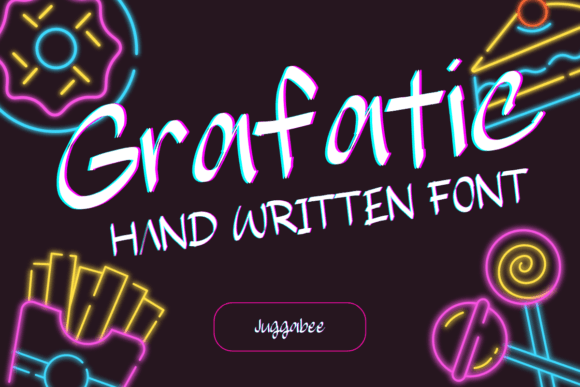
Dive into the world of Grafatic, the extraordinary script font that will make your designs pop with a burst of exuberance and charm. Crafted by the talented hands of Juggabee, Grafatic is not just a font; it's an adventure in creativity, a journey through the realm of unforgettable impressions.
With its playful personality and boundless versatility, Grafatic is your go-to choice for logos that demand attention, branding that speaks volumes, and designs that ignite imaginations. Let Grafatic be your muse as you weave captivating tales through your visual creations.
But Grafatic is more than just a pretty face. It's a font engineered for excellence, with an arsenal of alternative lowercase letters that empower you to craft unique and captivating compositions. Each letter is meticulously designed to dance harmoniously with the others, creating a visual symphony that commands attention and leaves a lasting impact.
With Grafatic by your side, you'll discover a treasure trove of possibilities, from whimsical invitations that spark joy to eye-catching social media posts that amplify your message. Unleash your creativity and watch as Grafatic transforms your designs into masterpieces that resonate with your audience.
Say goodbye to mundane fonts and embrace the magic of Grafatic. It's the perfect companion for designers, marketers, and creative entrepreneurs who dare to dream big and leave their mark on the world. Let Grafatic be your secret weapon as you craft designs that ignite conversations, inspire action, and leave a legacy of brilliance.